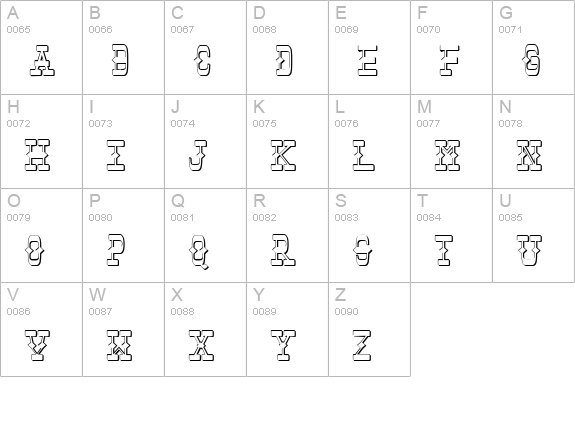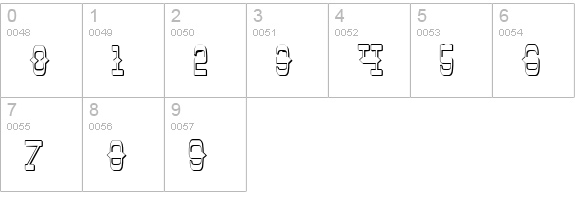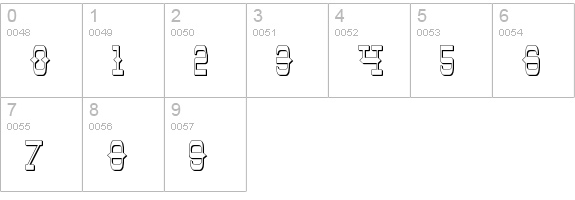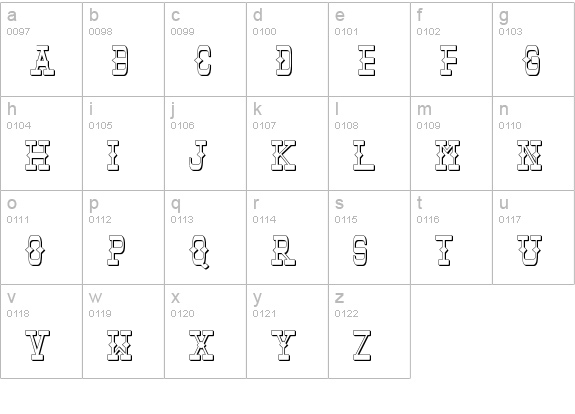
Tombstone Shadow Font Details
Introducing Tombstone Shadow, a bold and captivating font that will transport you to the wild west with its rugged and mysterious allure. This unique typeface exudes a sense of adventure, reminiscent of dusty saloons and daring outlaws. Its bold, thick strokes and sharp edges give it an edgy and authoritative look, making it perfect for headlines, logos, and branding projects that demand attention. Tombstone Shadow font embodies a perfect balance between vintage charm and contemporary design, making it versatile and suitable for a wide range of creative projects. Whether you're working on a poster for a western-themed event, designing a rustic logo for a whiskey distillery, or creating a captivating book cover for a thrilling crime novel, this font will effortlessly elevate your work to new heights. What's more, Tombstone Shadow is available for free download exclusively at FontsMarket.com. With just a few clicks, you can add this exceptional font to your collection and unlock its potential for your next design endeavor. Now, you can bring the spirit of the old west to life in your projects without breaking the bank. Tombstone Shadow font is not only visually appealing but also highly legible, ensuring that your message will be effectively communicated to your audience. Its carefully crafted letterforms have been designed with attention to detail, resulting in a font that is both visually striking and easy to read. So, whether you're a graphic designer, a typographer, or simply someone who appreciates the art of typography, Tombstone Shadow font is a must-have in your toolkit. Download it for free at FontsMarket.com and unleash your creativity with this exceptional font that captures the essence of the wild west.